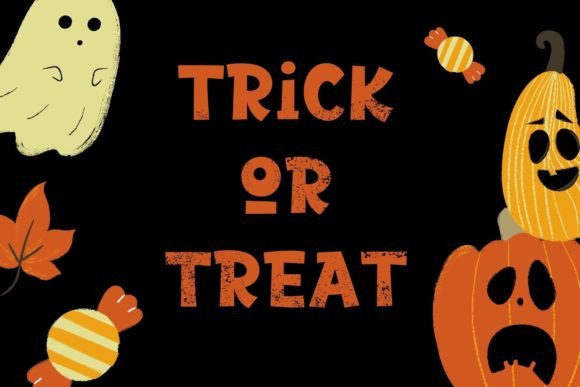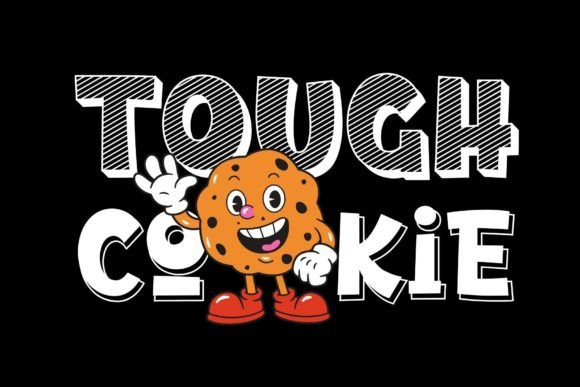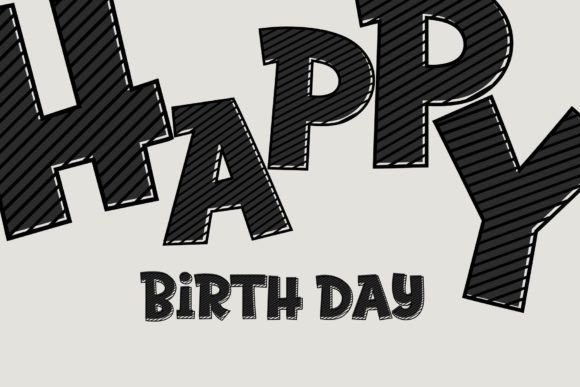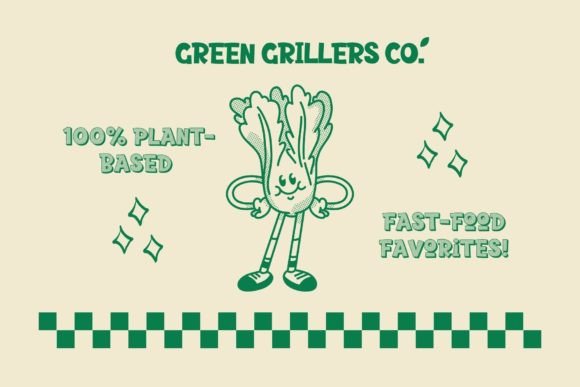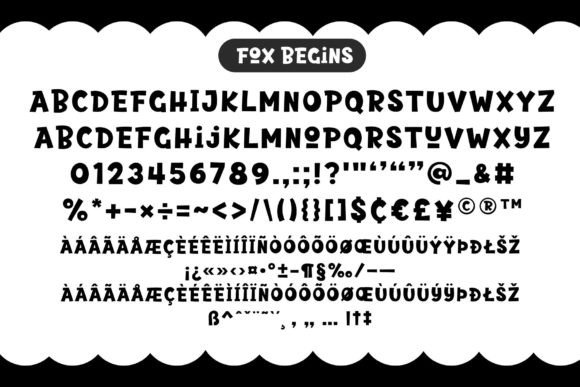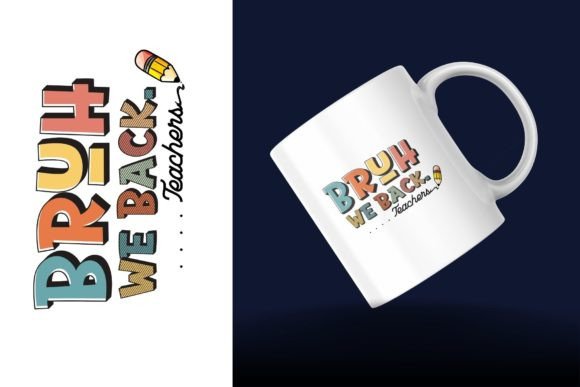
Introducing Fox Begins Font: The Ultimate Display Font for Creative Designs
Are you tired of using the same old fonts for your designs? Look no further! Fox Begins Font is here to revolutionize your creative projects with its cool, cute, and playful display font. This 4-style font is perfect for adding a captivating and energetic touch to your designs, making it ideal for a wide range of applications.
What Makes Fox Begins Font Special?
Fox Begins Font is a unique and vibrant display font that exudes uniqueness and creativity. Its main feature is its vibrant and expressive design, allowing you to create attention-grabbing headlines, t-shirt typography, banners, product labels, and more. The font’s playful and energetic vibe makes it perfect for designs that require a fun and youthful touch.
Fox Begins Font is versatile and can be used in a variety of design applications, including:
• Publications: Add a pop of color and energy to your publications, such as magazines, brochures, and flyers.
• Menus: Create mouth-watering menus that showcase your restaurant’s personality and style.
• Logos: Develop a unique and memorable logo that sets your brand apart from the competition.
• Business Cards: Make a lasting impression with business cards that feature a fun and playful font.
• T-Shirts: Print Fox Begins Font on t-shirts for a unique and eye-catching design.
Key Features of Fox Begins Font
Here are some key features that make Fox Begins Font a must-have for designers and crafters:
• 4 Style Font: Fox Begins Font comes in 4 different styles, giving you flexibility and variety in your designs.
• Vibrant and Expressive Design: The font’s vibrant and expressive design makes it perfect for attention-grabbing headlines and titles.
• Playful and Energetic: The font’s playful and energetic vibe makes it ideal for designs that require a fun and youthful touch.
• Unique and Creative: Fox Begins Font is a one-of-a-kind font that will set your designs apart from the rest.
Why Choose Fox Begins Font?
With so many fonts available, why choose Fox Begins Font? Here are just a few reasons:
• Easy to Read: Despite its playful and energetic vibe, Fox Begins Font is easy to read, making it perfect for body text and headlines.
• Scalable: The font is highly scalable, making it suitable for use in a variety of design applications, from business cards to billboards.
• Customizable: With 4 different styles to choose from, you can customize Fox Begins Font to fit your design needs.
How to Use Fox Begins Font
Using Fox Begins Font is easy! Here are some tips to get you started:
• Pair it with Other Fonts: Pair Fox Begins Font with other fonts to create a unique and visually appealing design.
• Experiment with Colors: Experiment with different colors to find the perfect combination that matches your brand’s personality.
• Play with Styles: Try out the different styles of Fox Begins Font to find the one that works best for your design.
In conclusion, Fox Begins Font is a unique and versatile display font that is perfect for designers and crafters looking to add a captivating and energetic touch to their designs. With its vibrant and expressive design, playful and energetic vibe, and 4 different styles to choose from, Fox Begins Font is a must-have for any creative project. So why wait? Download Fox Begins Font today and take your designs to the next level!